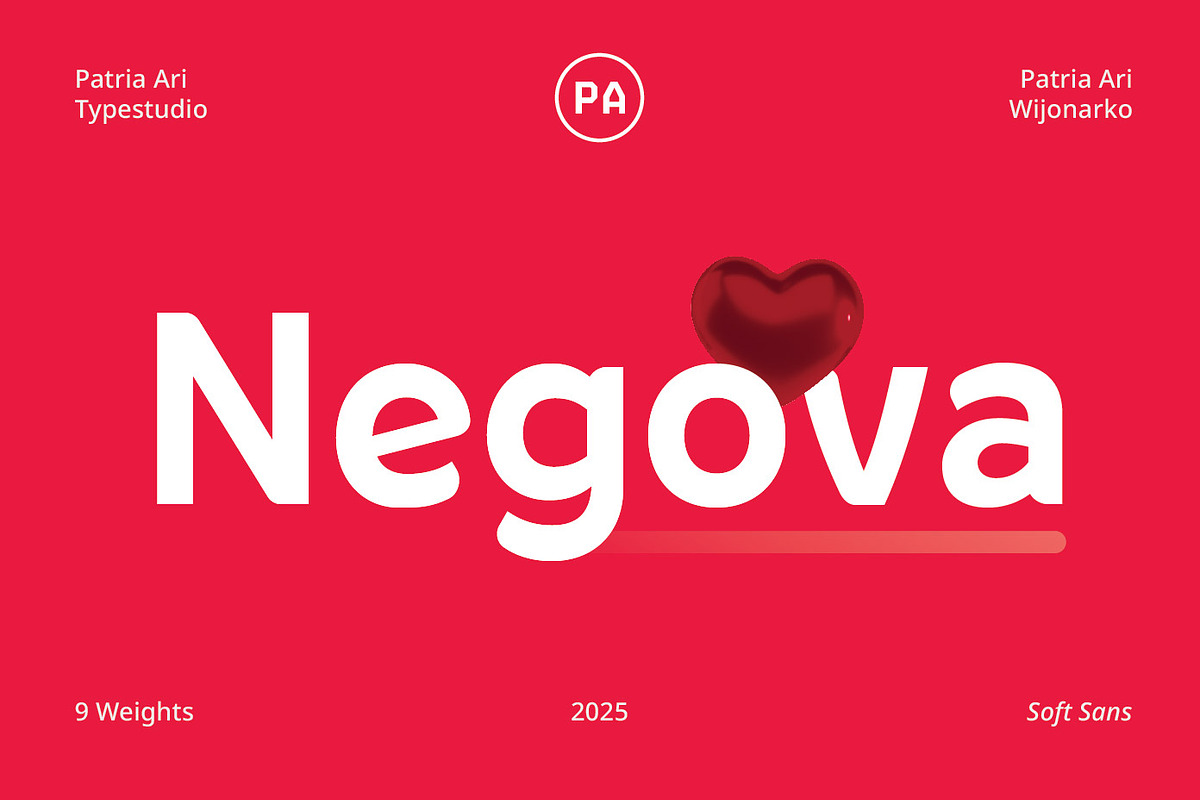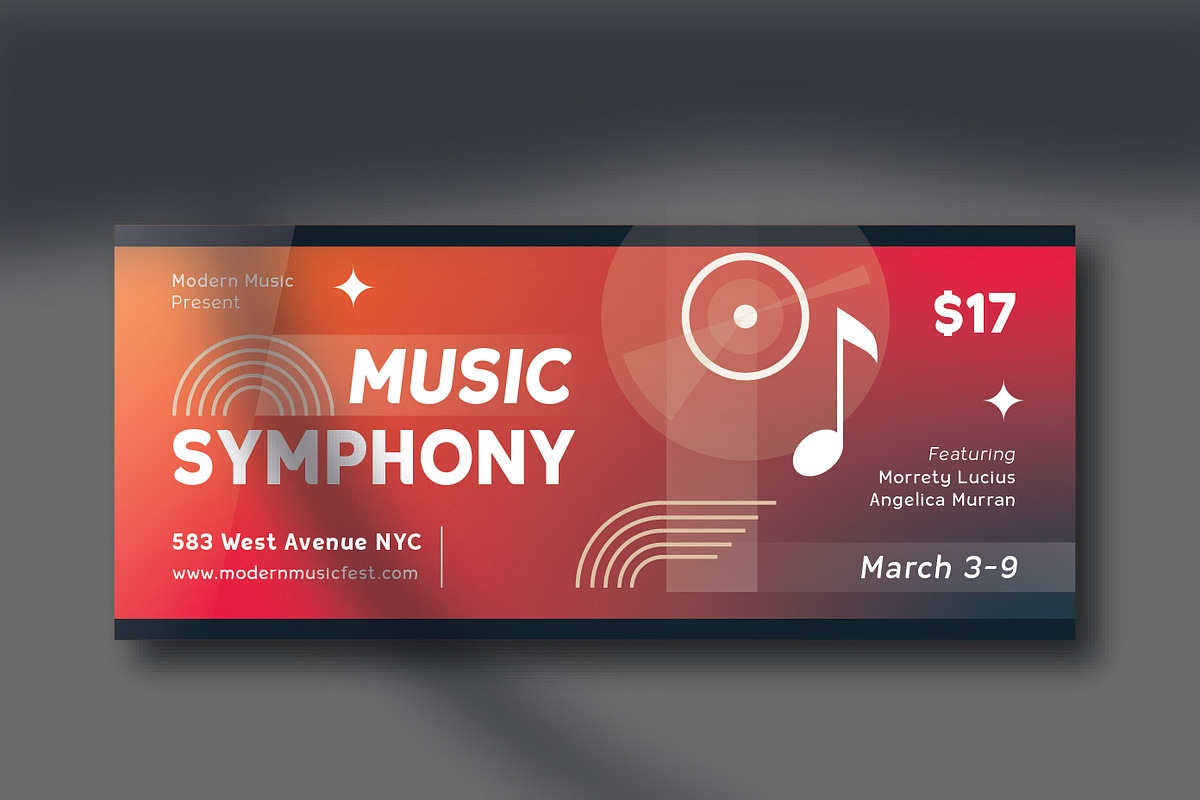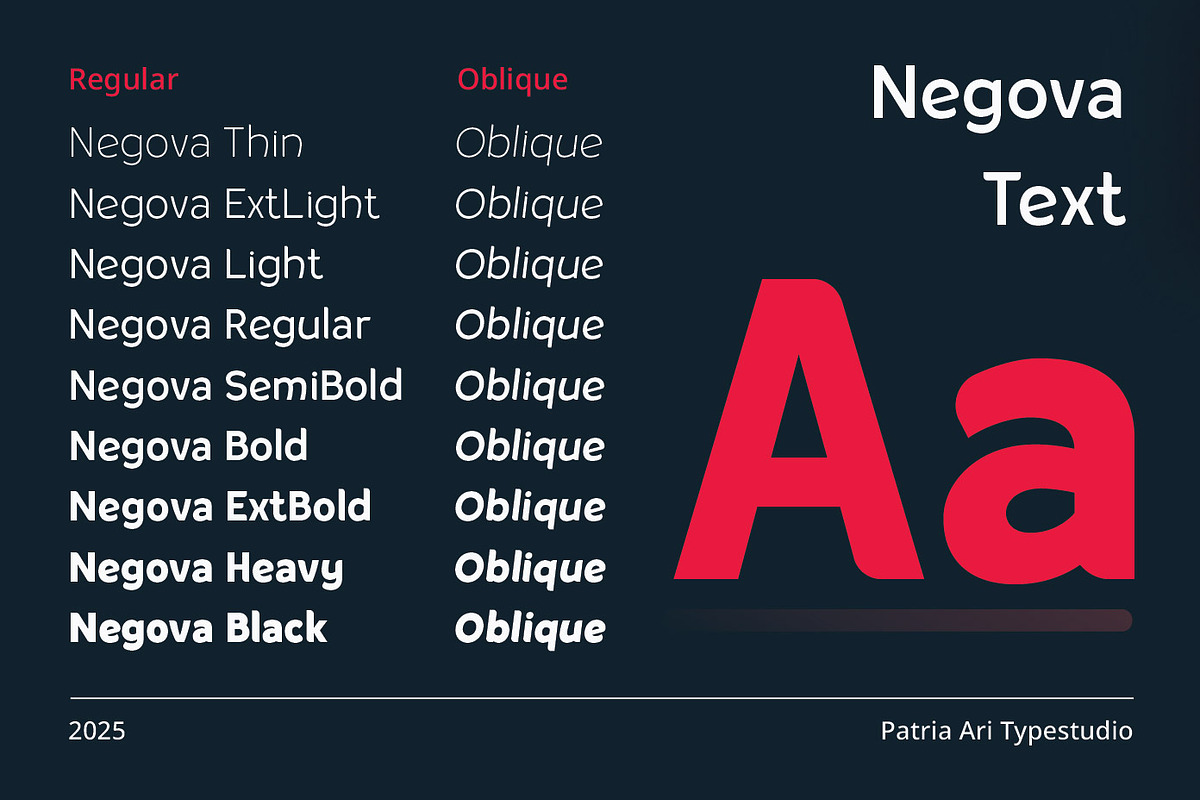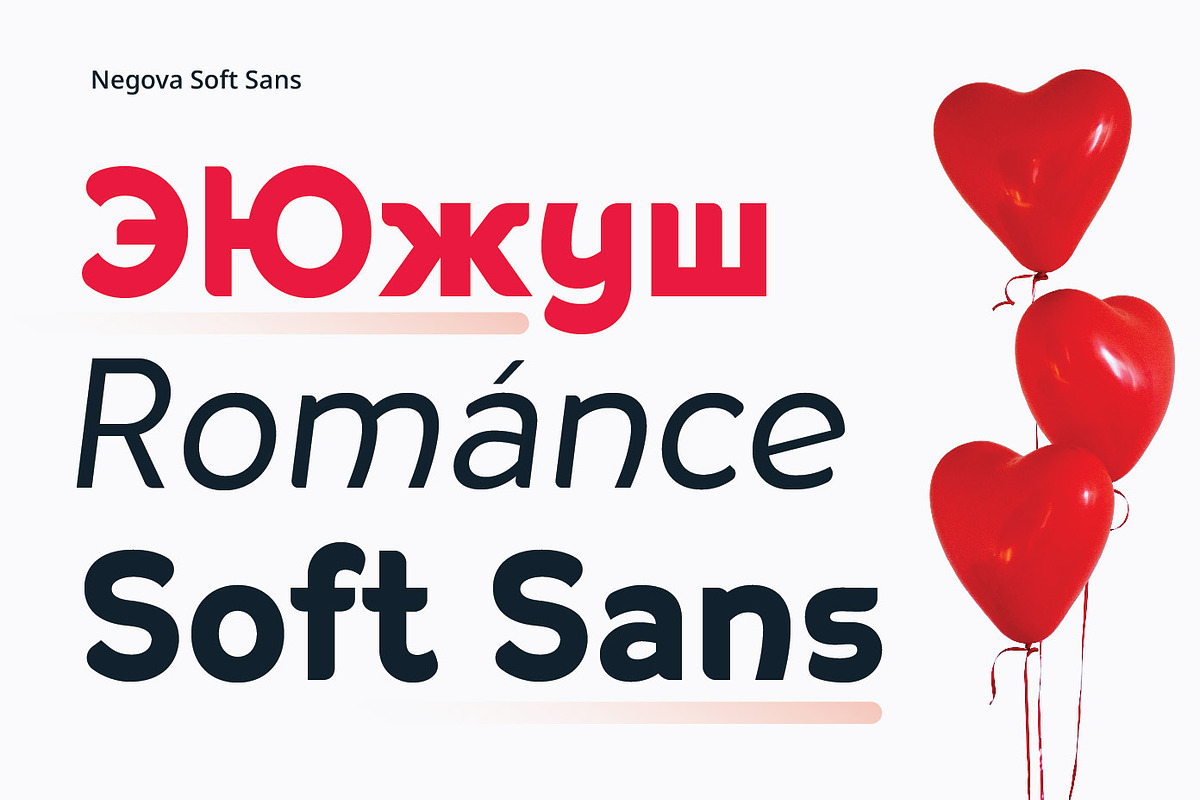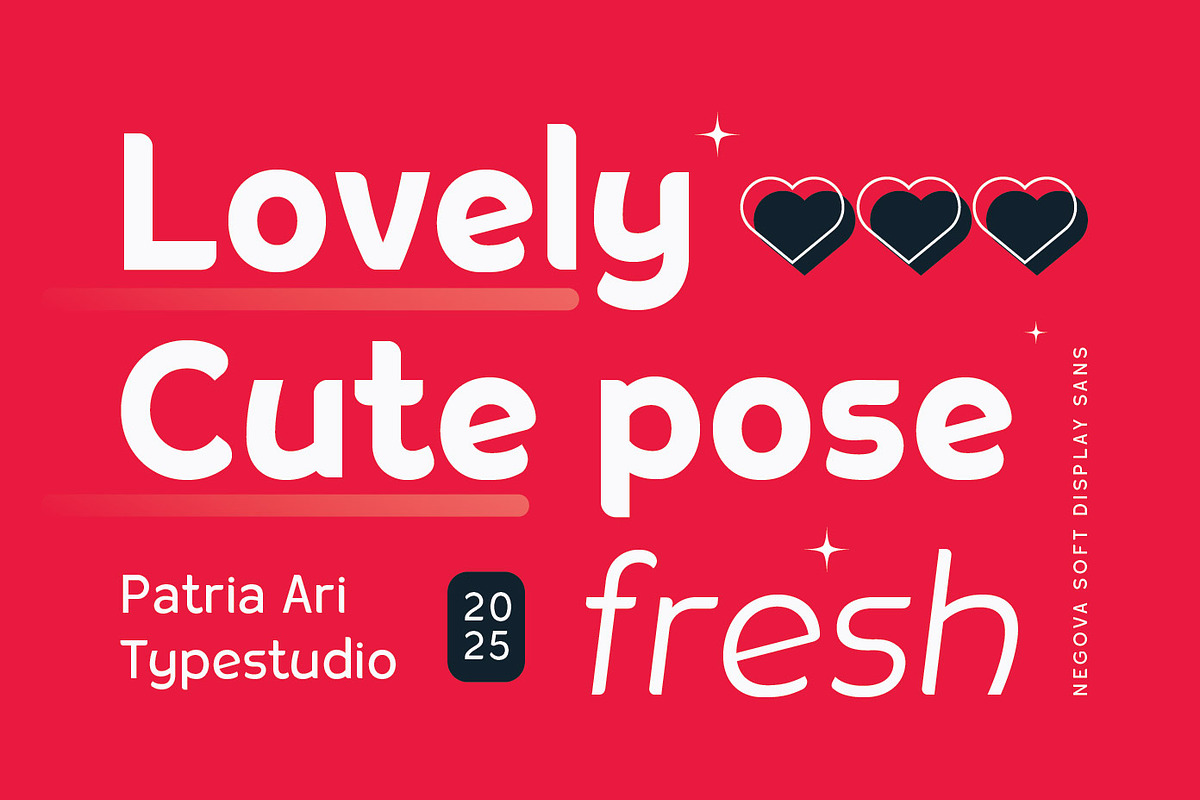
Negova Curved Display Sans
Negova is a charming and curvaceous display sans-serif font that exudes a sense of playfulness and elegance. Its rounded edges and smooth curves give it a friendly and approachable feel, making it perfect for designs that aim to convey warmth and creativity.
The font’s unique character shapes and balanced proportions ensure excellent readability, even at larger sizes, making it ideal for headlines, logos, and other prominent design elements.
Negova’s versatility allows it to blend seamlessly into a variety of design contexts, from modern and minimalist to whimsical and artistic. Whether you’re working on branding, editorial design, or digital media, Negova adds a touch of sophistication and charm to any project.